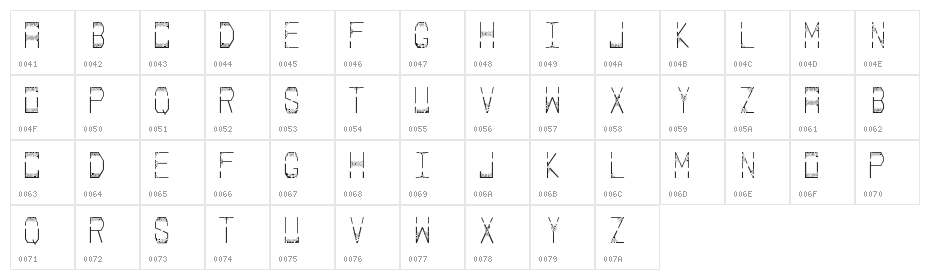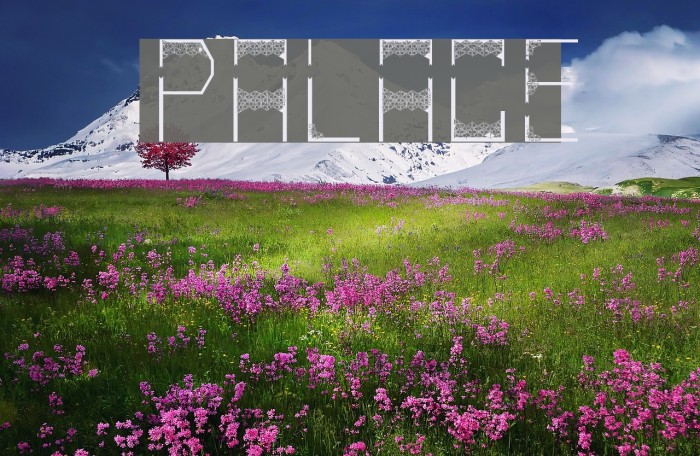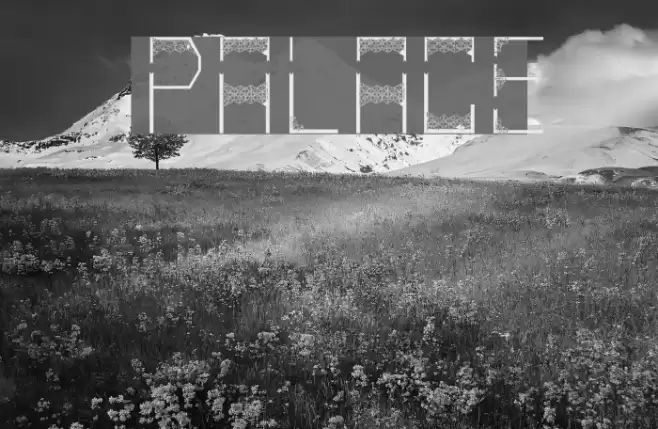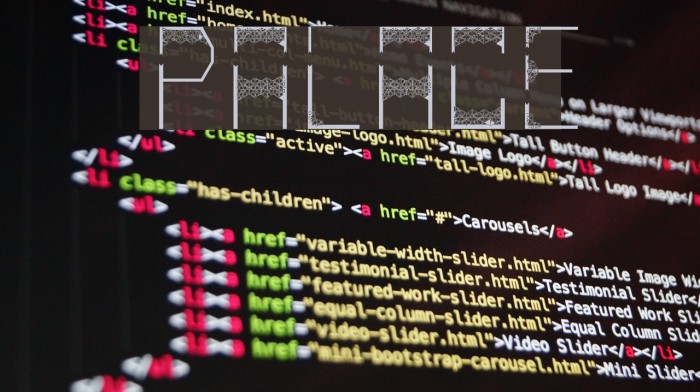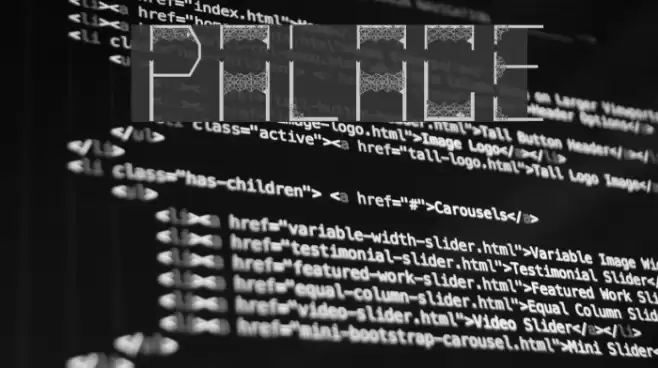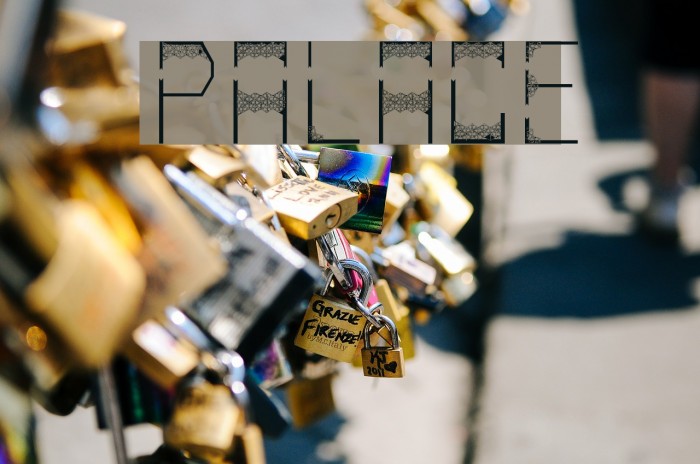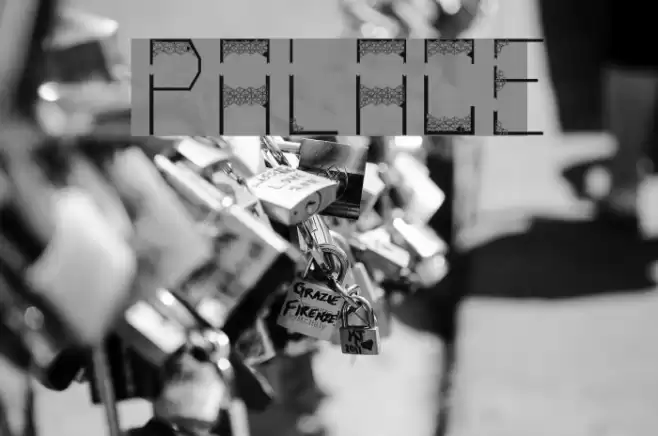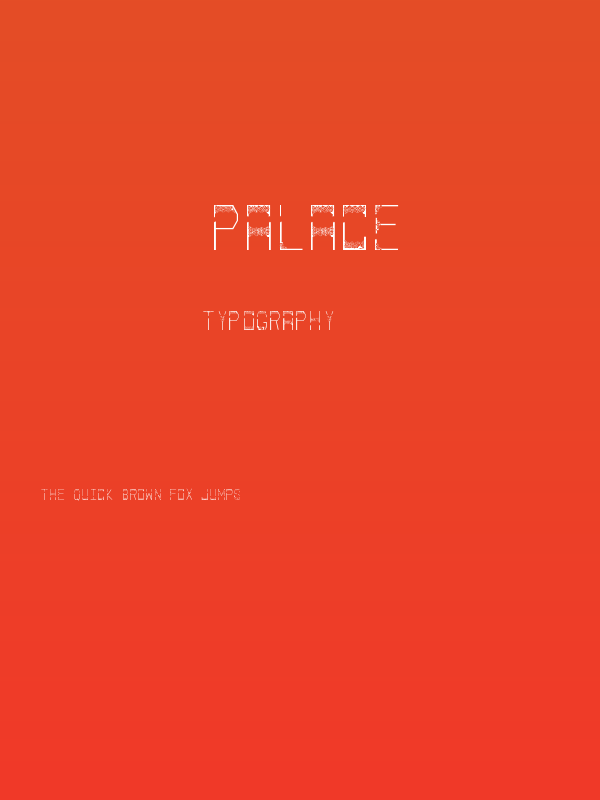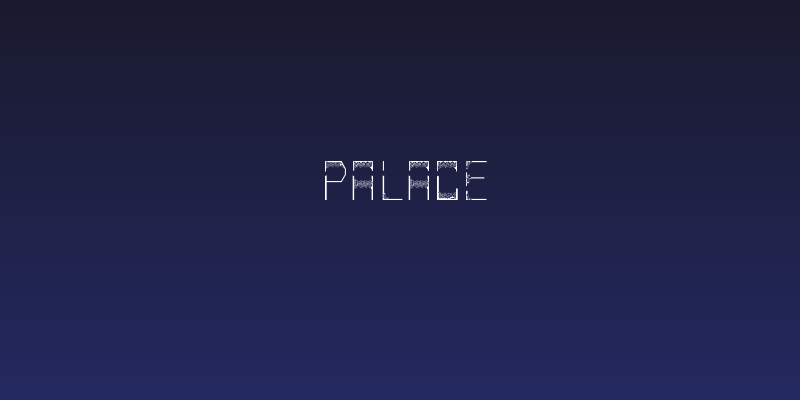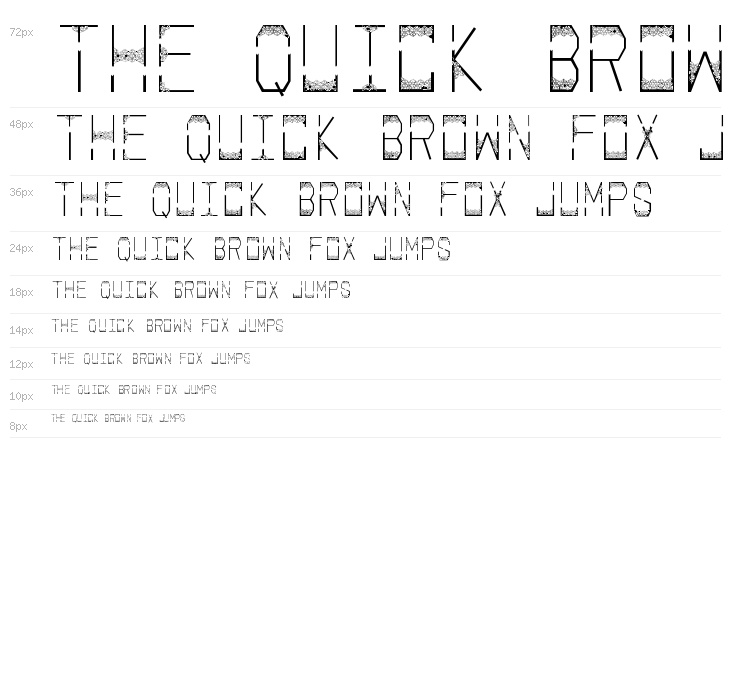
Palace Font
Palace Description
This font features a unique, decorative style with a distressed texture that gives it a vintage and industrial feel. The characters are constructed with a combination of solid and broken lines, creating a stencil-like appearance. The uppercase letters are bold and geometric, with sharp angles and straight lines. The texture within the letters adds a rugged, worn effect, making it suitable for designs that require a gritty or urban aesthetic. The font's distinct style makes it stand out, ideal for creative projects that need a bold statement.
| Overall Style | Vintage, Industrial |
| Proposed Projects | Ideal for poster designs, album covers, branding for edgy or urban-themed products, and any project requiring a bold, statement-making font. |